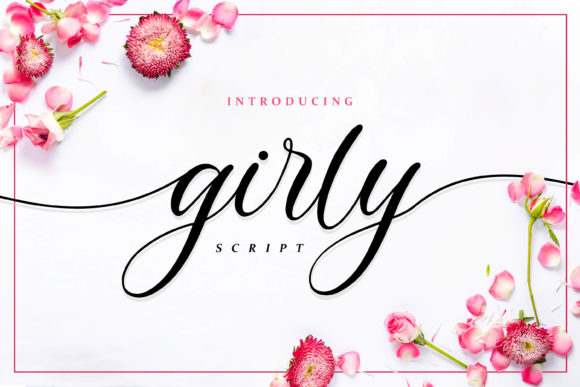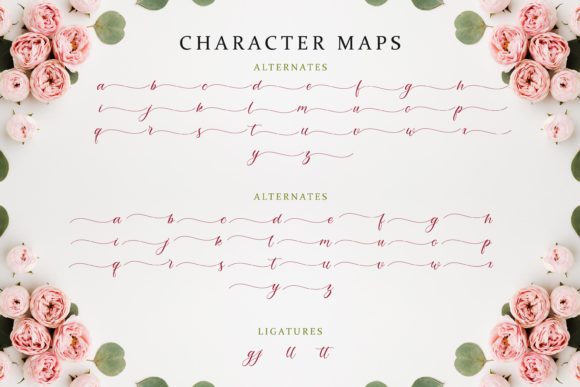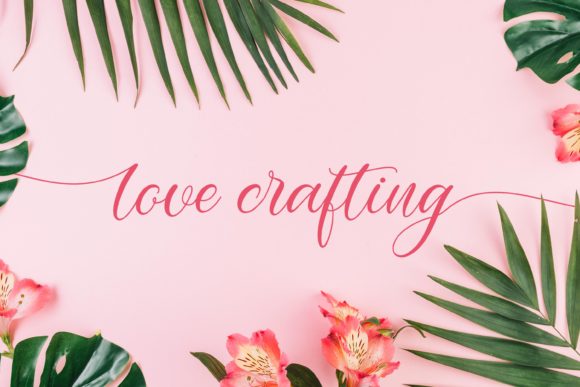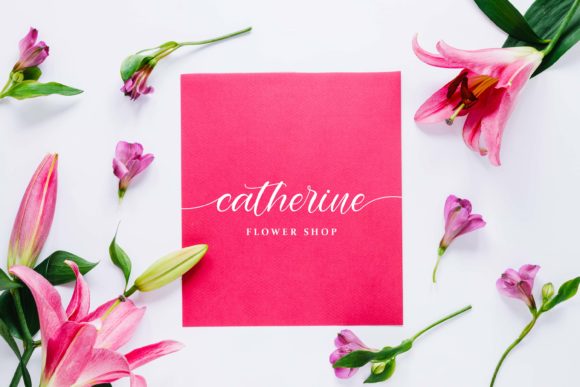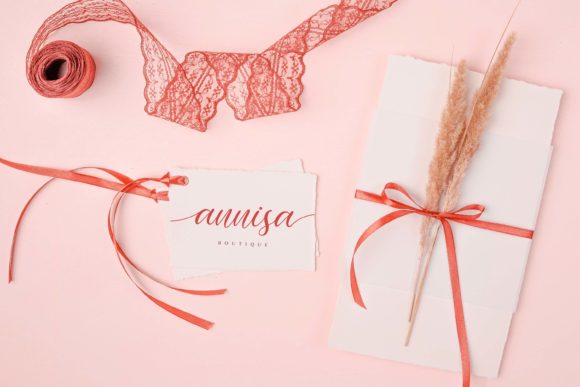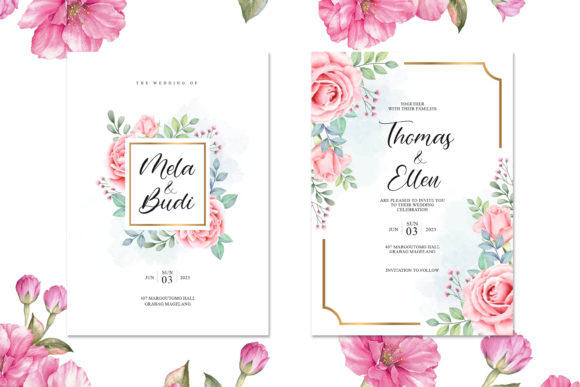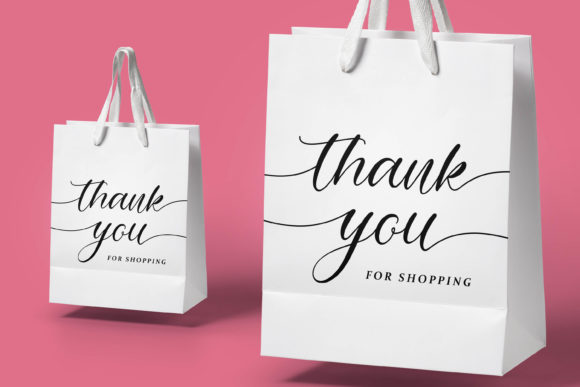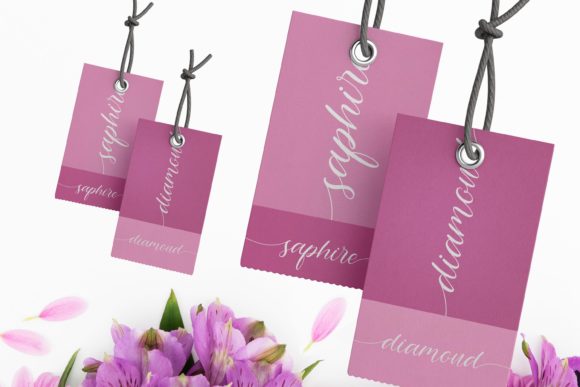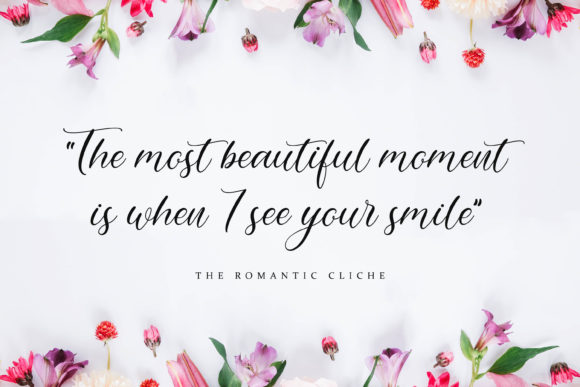
Girly Font
About Girly Font
Girly is a cute and casual handwritten font with an incredibly friendly feel. It features gorgeous swashes and ligatures that make this script incredibly versatile. Whether you’re looking for fonts for Instagram or calligraphy scripts for DIY projects, Girly will turn any creative idea into a true piece of art!
This font is PUA encoded which means you can access all of the amazing glyphs and swashes with ease! It also features a wealth of special features including alternate glyphs and ligatures.